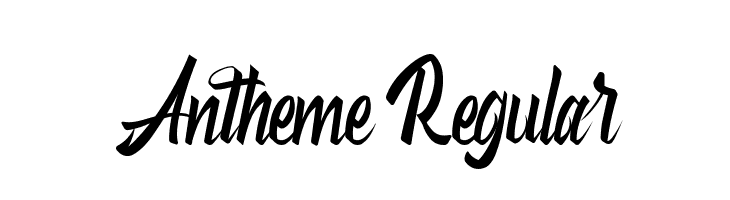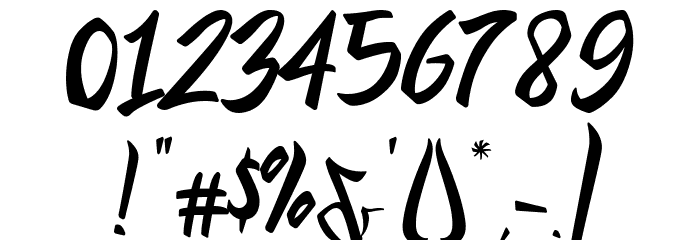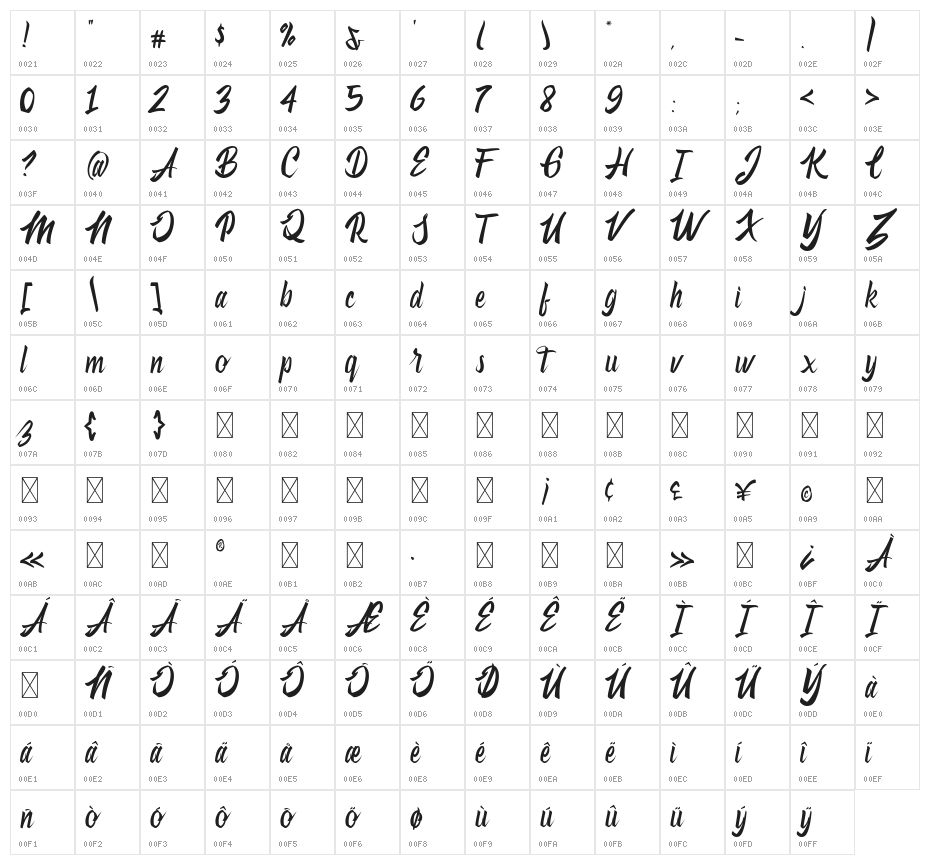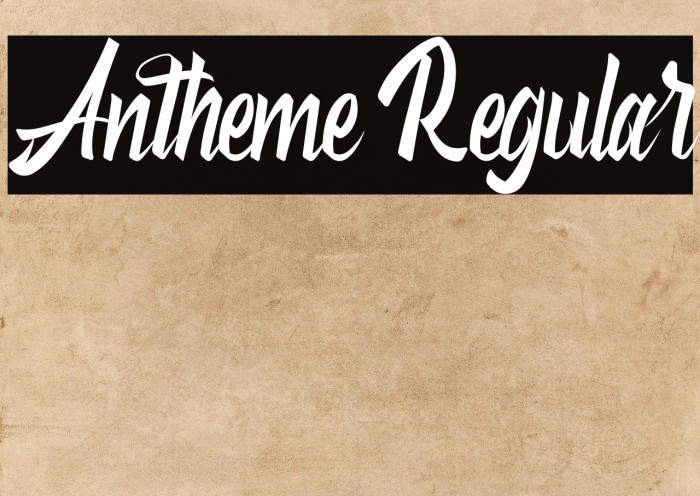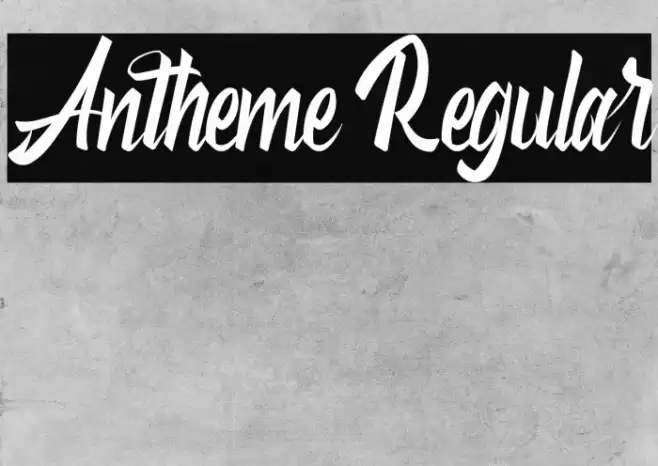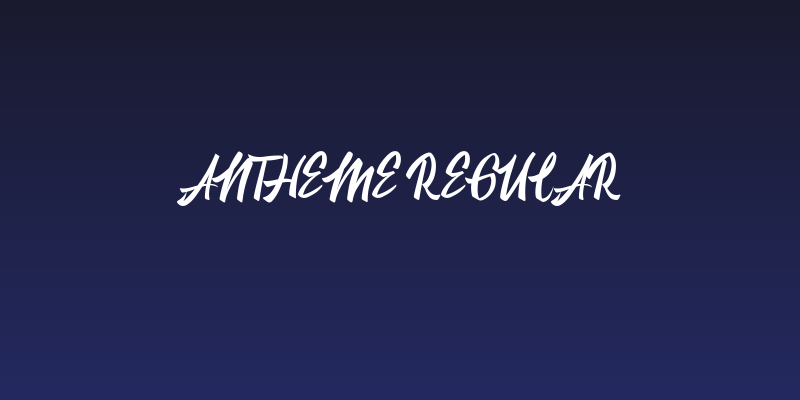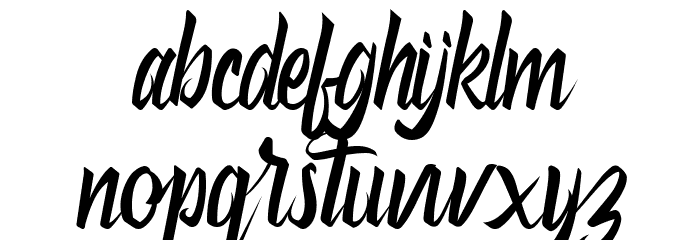
Antheme Regular Font
Antheme Regular Description
This font exudes a dynamic and energetic style, characterized by its flowing, cursive script. The letters are elegantly connected, creating a sense of movement and fluidity. The strokes are bold and confident, with a slight slant that adds to the overall sense of motion. The uppercase letters are particularly striking, with dramatic flourishes and loops that give them a distinctive appearance. The lowercase letters maintain the same fluidity, ensuring consistency throughout the text. Numbers and special characters are designed with the same attention to detail, making them seamlessly integrate with the alphabet. This font is perfect for projects that require a touch of elegance and personality.